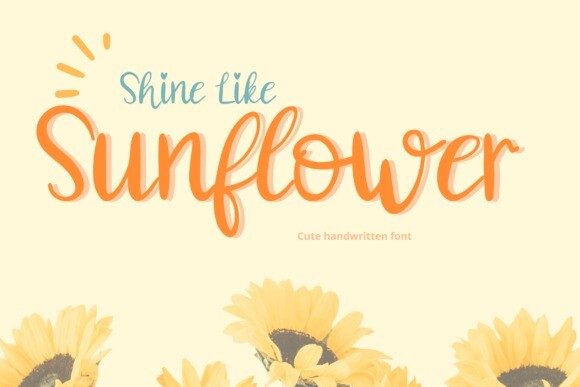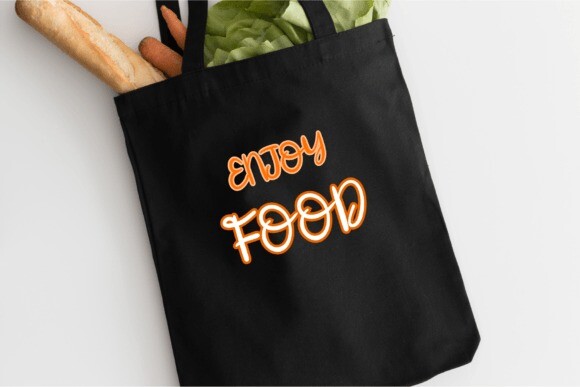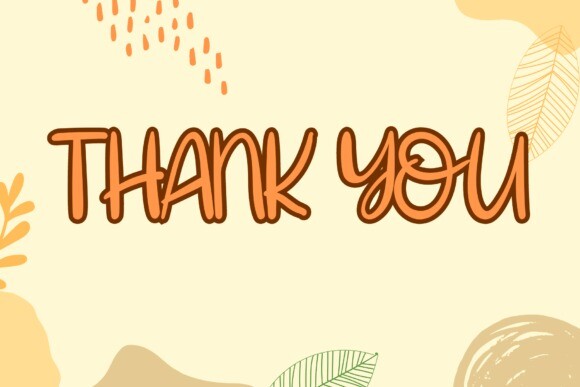
Shine Like Sunflower Font
Shine Like Sunflower Font is a friendly handwritten font that will add elegance and class to any of your design projects, logos, wedding designs, social media posts, advertisements, product packaging, product designs, label, photography, watermark, invitation, stationery, and any other projects.